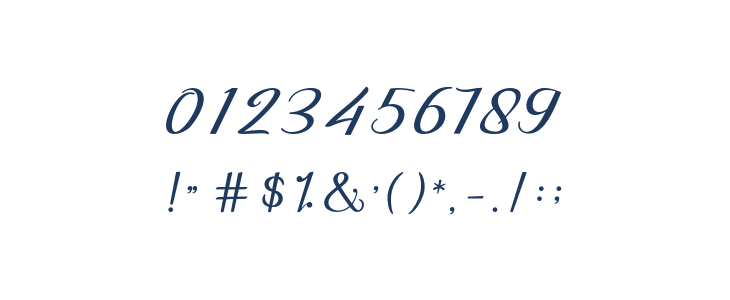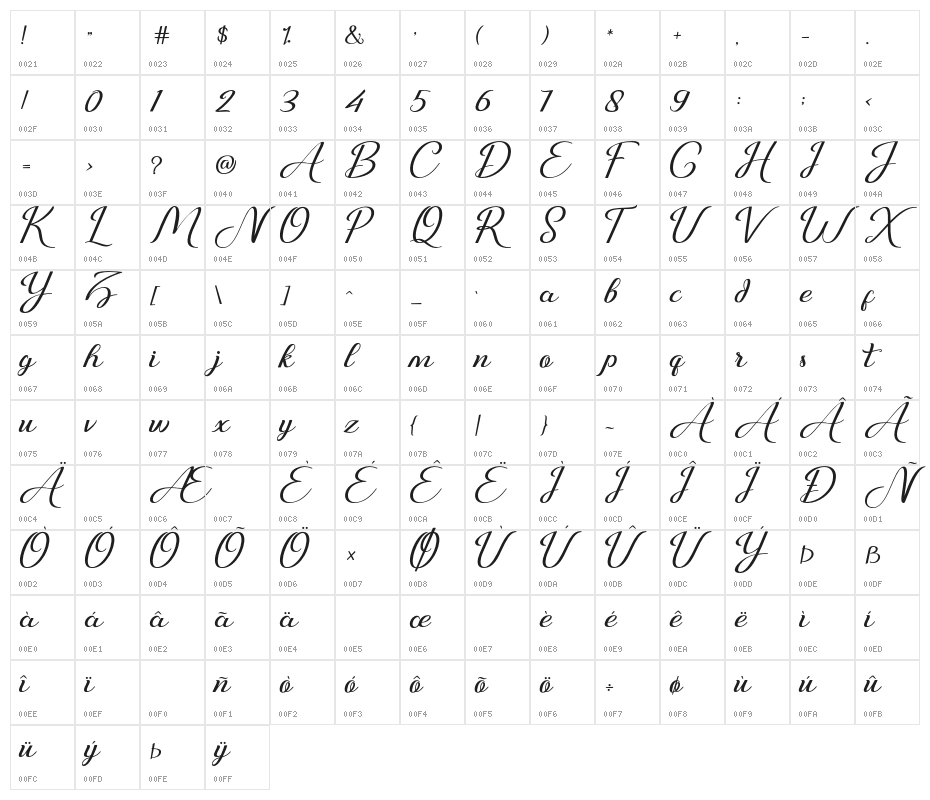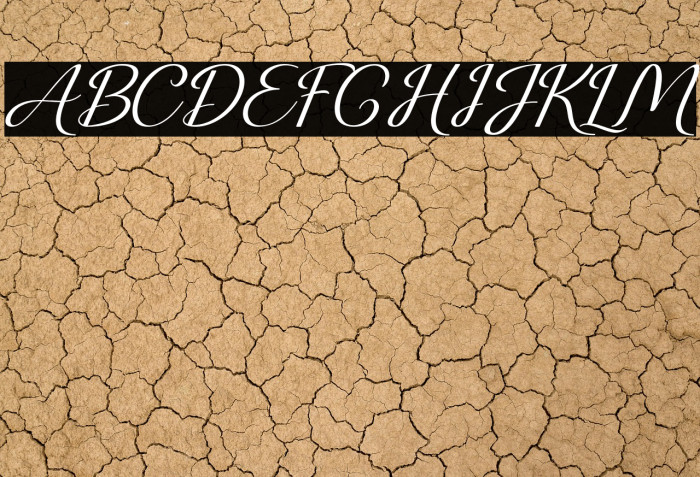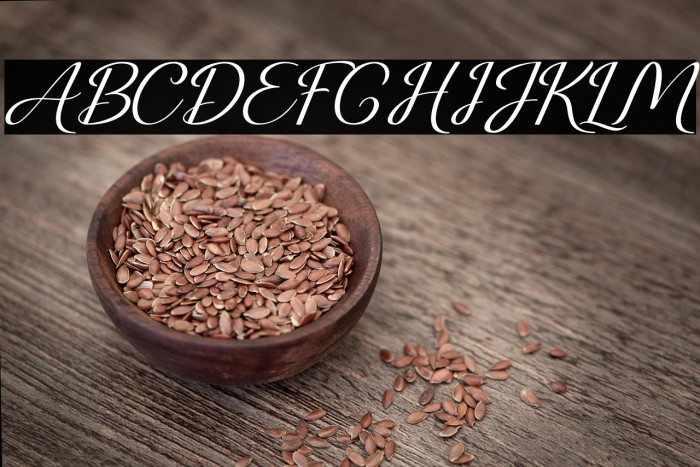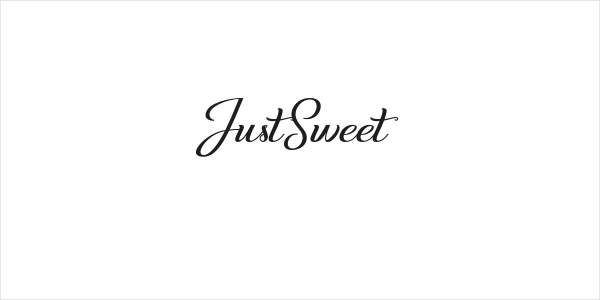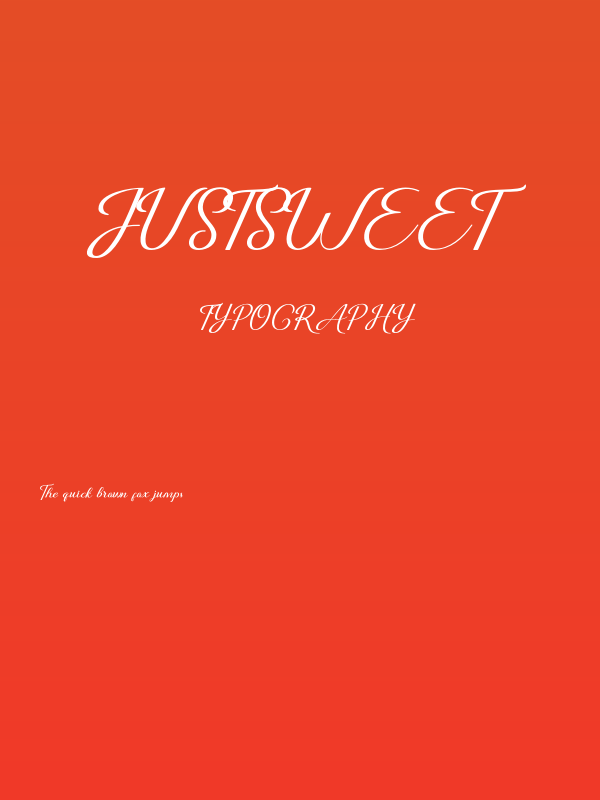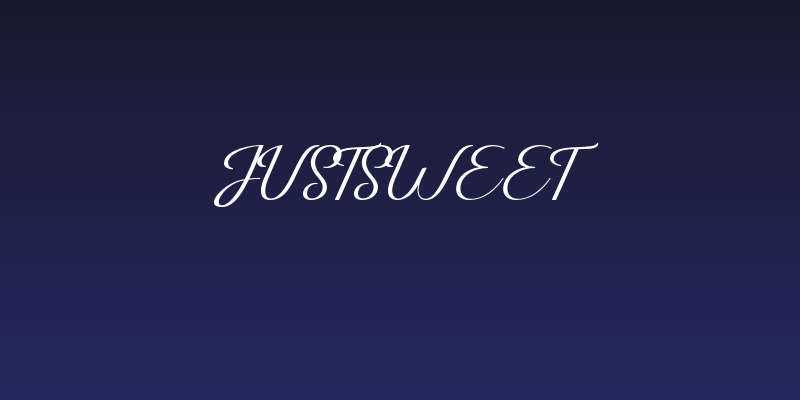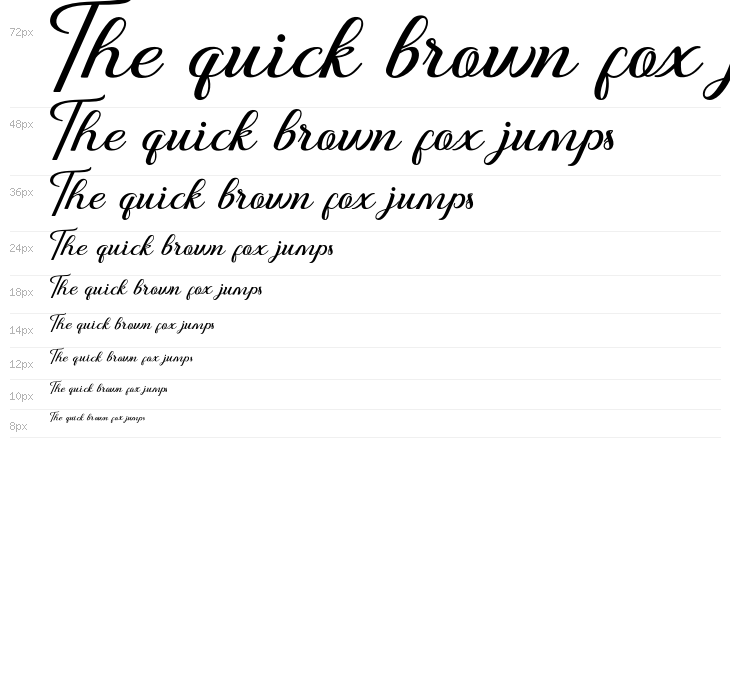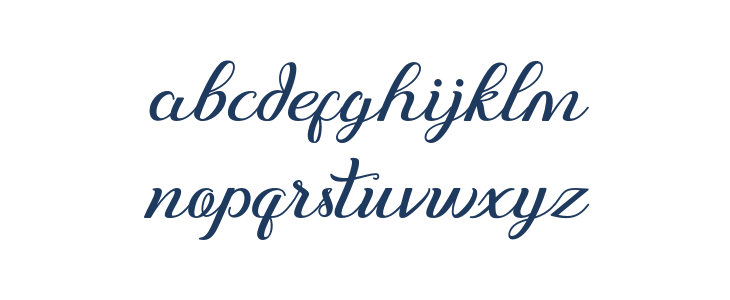
JustSweet Font
JustSweet Description
This elegant script font features flowing, cursive letterforms with a sophisticated and graceful appearance. The uppercase letters are characterized by their sweeping curves and delicate loops, while the lowercase letters maintain a consistent fluidity that enhances readability. The numerals and special characters complement the overall style with their refined and stylish design. The font's strokes are smooth and continuous, creating a harmonious and cohesive look. This font is perfect for adding a touch of elegance and class to any design project, making it ideal for invitations, branding, and decorative purposes.
| Overall Style | Elegant |
| Use Case | Invitations, Branding, Decorative |
| Proposed Projects | Ideal for wedding invitations, luxury branding, greeting cards, and elegant packaging designs. |